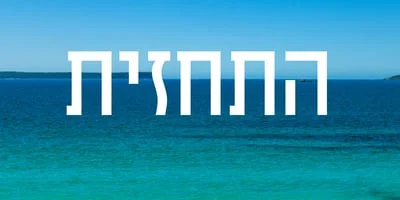
Tamrurim MF Font
Tamrurim MF Font is perfect for Middle Eastern cultural materials, Hebrew text layouts, Israeli business communications, religious publication designs, cultural heritage projects, academic research documents, multilingual branding campaigns, Semitic language publications, cultural festival promotions, and traditional ceremony invitations. This authentic typeface creates genuine cultural atmosphere in both traditional print and contemporary digital applications.
What makes Tamrurim MF Font exciting is its masterful interpretation of traditional Hebrew typography with contemporary design sophistication. The font features authentic letterforms with cultural proportions and traditional character details that honor centuries of Hebrew scribal traditions while ensuring modern readability. Its distinguished design establishes an atmosphere of cultural authenticity and scholarly respect that resonates with Hebrew-speaking communities and cultural enthusiasts.
Tamrurim MF Font family includes cultural variations: Light, Regular, Medium, Bold, and Traditional versions, each with authentic Hebrew character sets and traditional alternates. Each variant maintains the font's cultural integrity while providing designers with authentic options for creating traditional typography systems and Hebrew communication materials.
This exceptional cultural typeface brings authentic Hebrew credibility to projects requiring traditional presentation. Whether you're designing religious materials, cultural communications, or Hebrew educational content, Tamrurim MF Font delivers outstanding authenticity and cultural sophistication. The font's traditional proportions and Hebrew details ensure memorable cultural connection across various heritage applications.